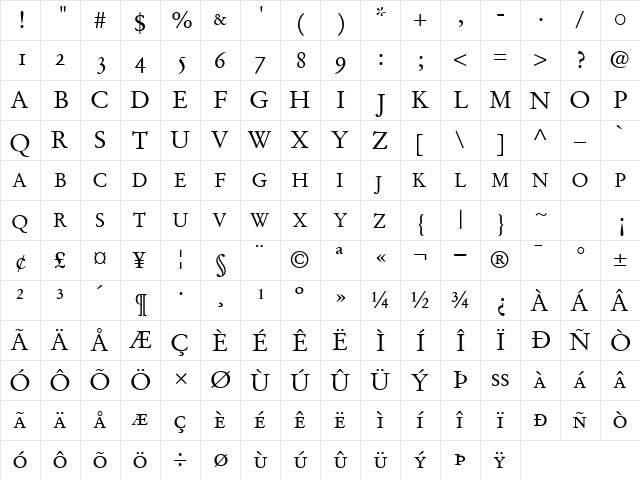
DeutchGaramondOSSSCapsSSK Regular
Design Context for DeutchGaramondOSSSCapsSSK Typeface
DeutchGaramondOSSSCapsSSK offers clean, dependable letterforms without strong stylistic allegiance, making it a practical choice for designers who need flexibility.